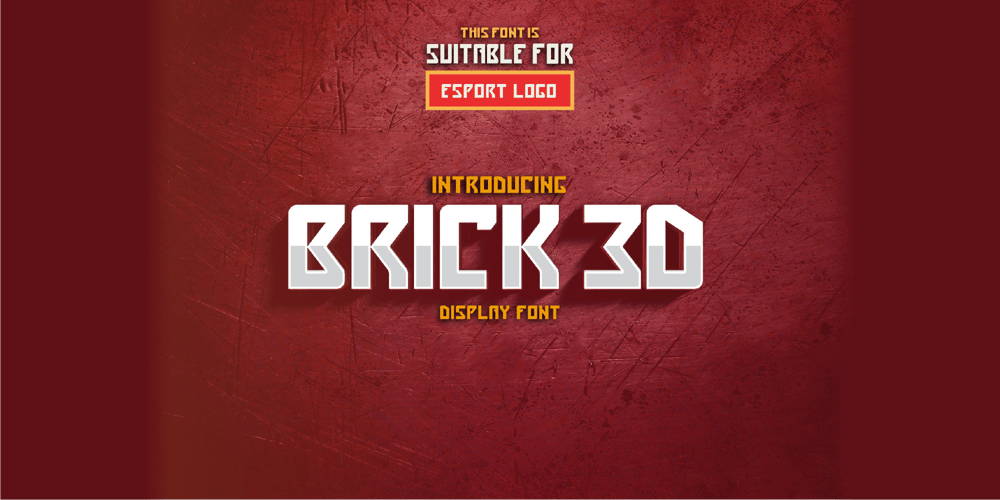
BRICK 3d Font Family was designed by Wahyu Aji Prasetyo and published by WAP Type. BRICK 3d contains 1 styles and family package options. More information about this Font Introducing “Brick 3D esport Font”This font can be used for any variety purpose, such as: Logo, Esport Logo, Band Logo, Championship Logo, Military Logo and ClothingFEATURES :uppercase lowercase symbol & number All images on the demo is just for preview purpose only, not included on the file!FILES INCLUDE :TTF OTF Hope you love itThank you!